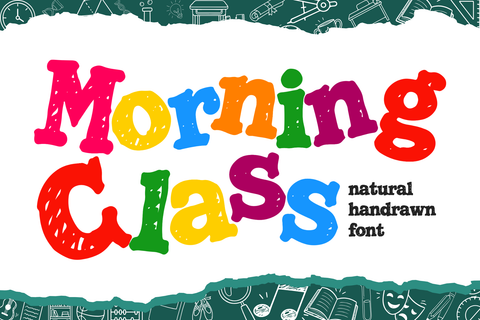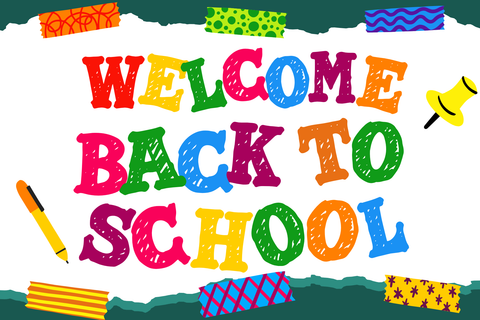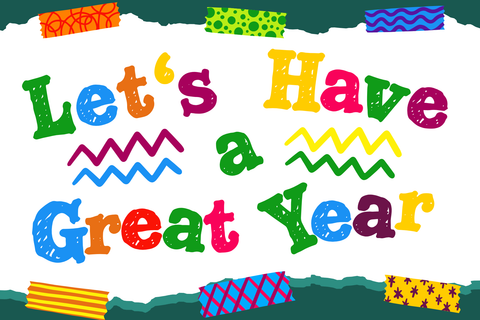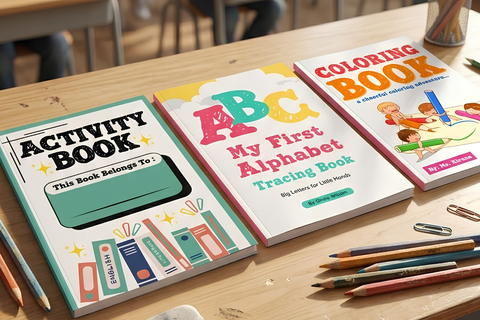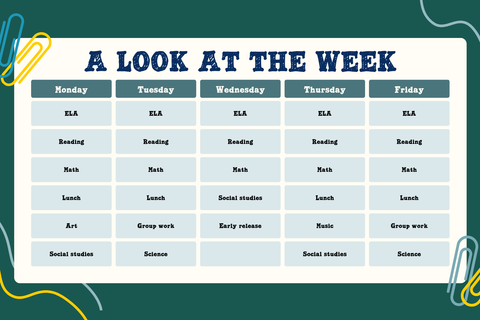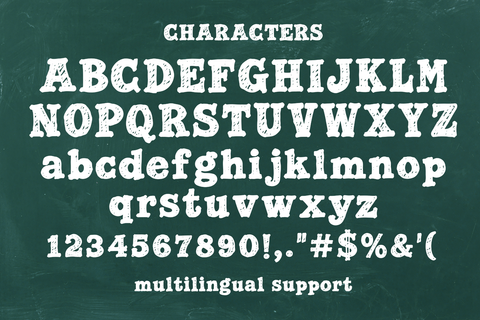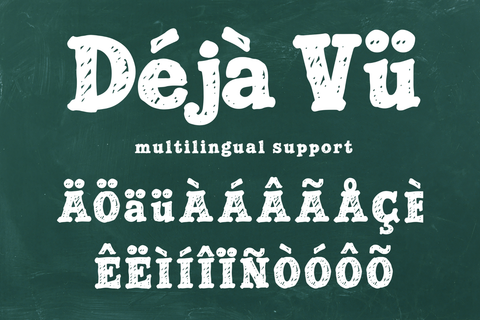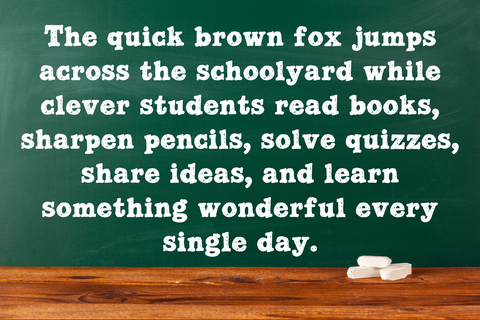
Morning Class - Playful hand-drawn Display Font
Morning Class is a playful hand-drawn display font inspired by the cheerful atmosphere of classrooms, school supplies, doodles, handwritten notes, and the excitement of a new school year. With its natural imperfect strokes and friendly character, this font brings a warm handmade feeling to educational and creative designs.
Designed for modern back-to-school projects, Morning Class combines playful lettering with an easygoing handwritten appearance. It is perfect for school posters, classroom decorations, worksheets, educational graphics, children's products, school event promotions, notebooks, planners, stickers, apparel, invitations, social media content, packaging, and printable crafts.
Morning Class includes uppercase and lowercase characters, numbers, punctuation, and multilingual support, making it versatile for a wide range of creative projects. The hand-drawn construction gives every word a natural and approachable appearance, helping designs feel cheerful, creative, and youthful.
Whether you're creating a back-to-school campaign, classroom artwork, educational branding, kids' merchandise, teacher resources, or colorful stationery, Morning Class adds a fun handwritten touch that instantly communicates a youthful school-day atmosphere.